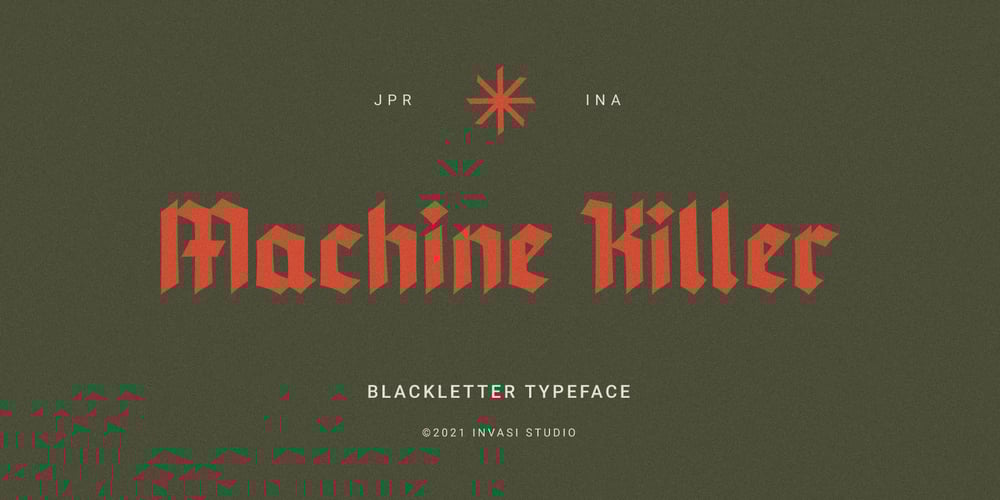
Machine Killer
Machine Killer font
Machine Killer Font Family was designed by Gha Arizal and published by Invasi Studio. Machine Killer contains 1 styles and family package options. Machine Killer Font is a modern Blackletter style font that is perfect for your Display or Body text designs. It adds a bold touch to your projects and will inspire you to create something unique and modern.Funky Gloom Font is ideal for headings, flyers, greeting cards, product packaging, book covers, printed quotes, logotype, apparel design, and album covers, and it is perfect for headings, flyers, greeting cards, product packaging, book covers, printed quotes, logotype, apparel design, and album covers.